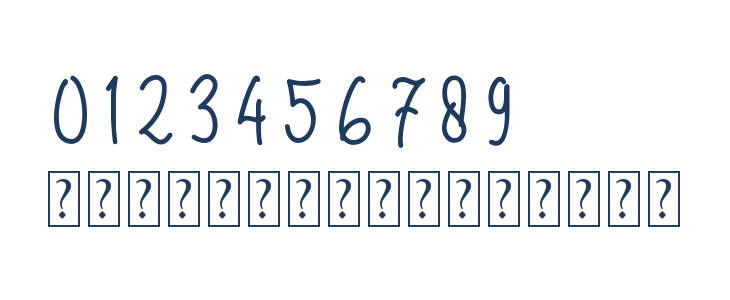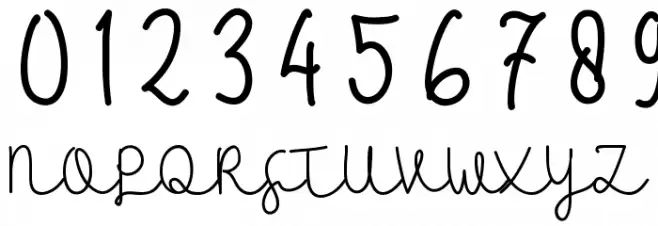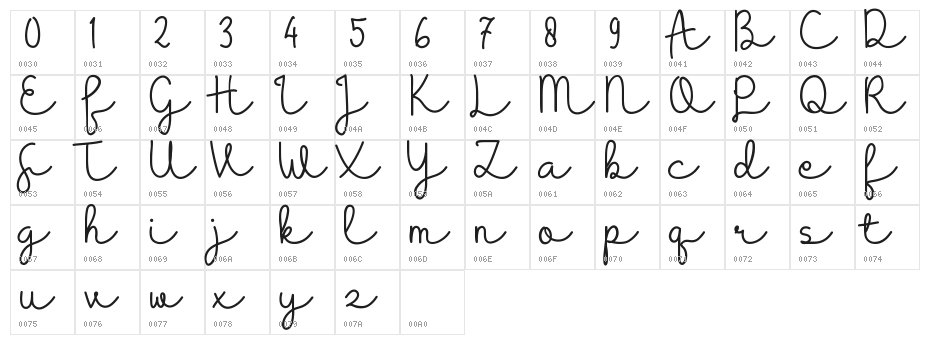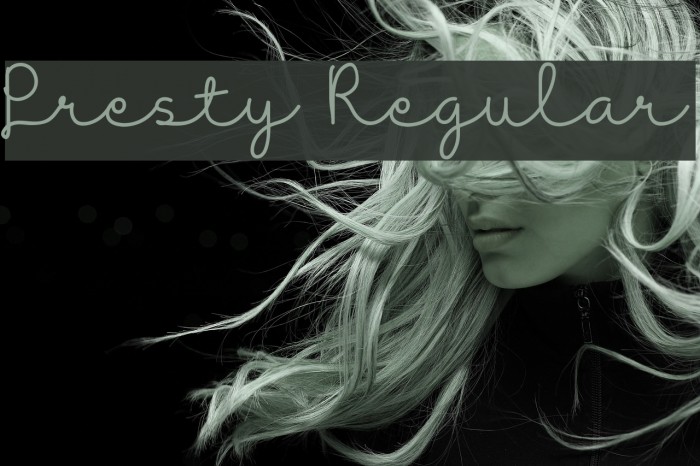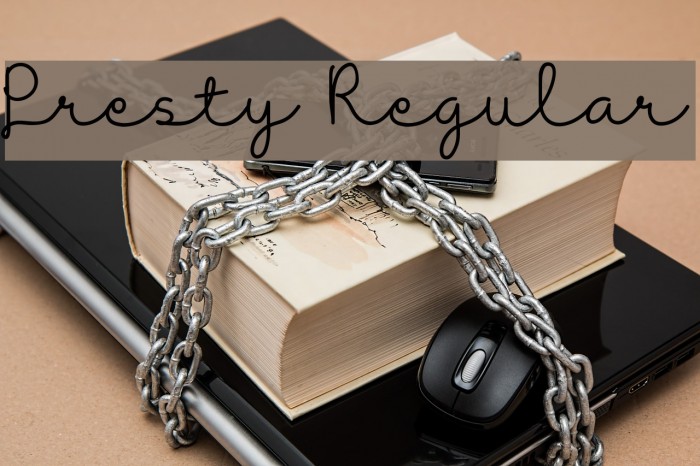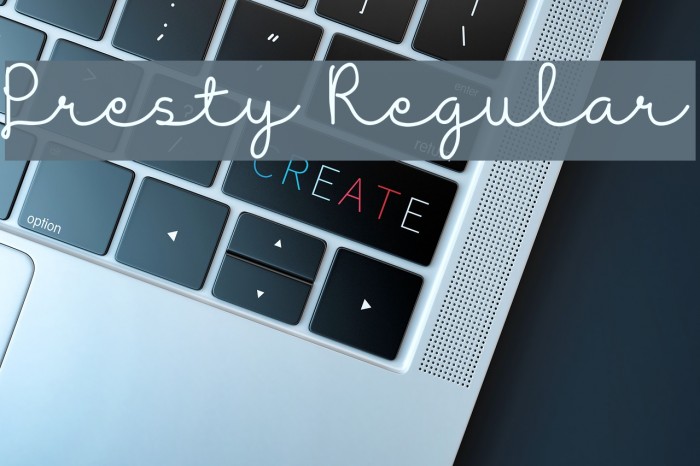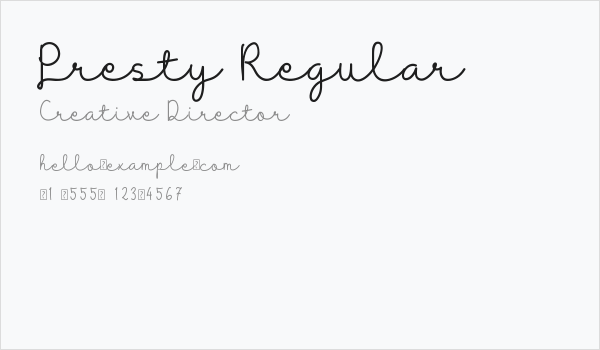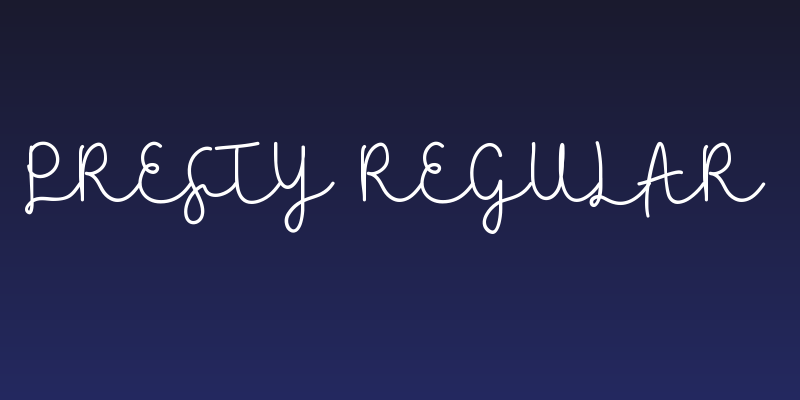
Presty Regular Font
Presty Regular Description
This font features a charming handwritten style with a playful and flowing script. The characters are connected in a smooth, cursive manner, giving it a personal and informal feel. The uppercase letters are slightly taller and more pronounced, while the lowercase letters maintain a consistent flow. The numbers are clear and easy to read, with a slight slant that matches the overall style. Special characters are seamlessly integrated, maintaining the font's cohesive look. This font exudes a sense of warmth and friendliness, making it ideal for projects that require a personal touch.
| Overall Style | Casual, Friendly |
| Use Case | Logos, Invitations, Social Media |
| Proposed Projects | Greeting cards, invitations, personal branding, social media graphics, and casual event posters. |